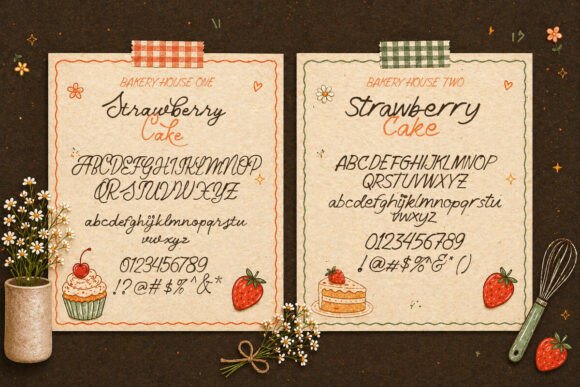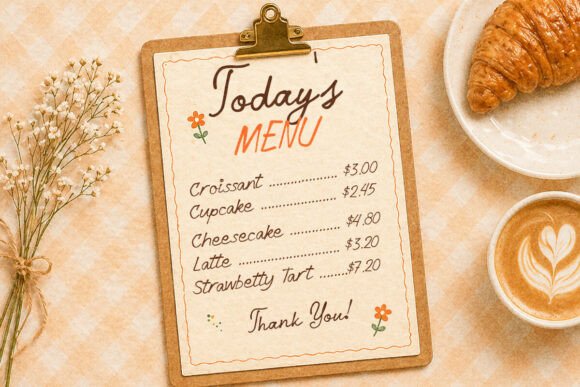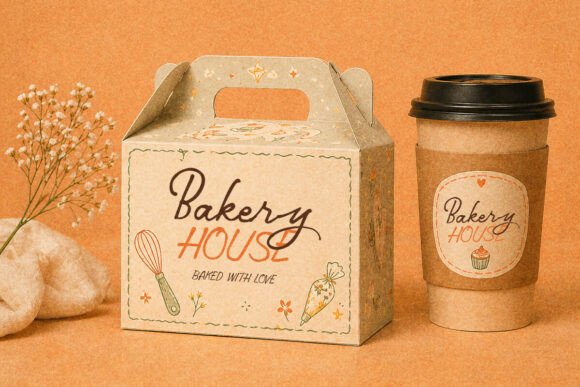
The Sweetest Font for Your Design: A Deep Dive into Golden Crumbs
Have you ever been in the middle of a design project, and suddenly, you’re stuck on finding the perfect font? I recall a recent experience where I was working on a bakery’s branding, and I just couldn’t find a font that captured the warmth and friendliness I was looking for. That’s when I stumbled upon Golden Crumbs, a delightful font that combines a soft handwritten script with a playful sans serif. In this article, we’ll explore what makes Golden Crumbs special, its features, and how to make the most of it in your designs.
A Personal Review: What I Love About Golden Crumbs
Here’s what I love about Golden Crumbs:
- ✨ Warm and delightful aesthetic: The font exudes a cozy, cute vibe with a hint of vintage charm, making it perfect for bakery logos, packaging, menus, and branding that want to feel friendly and full of joy.
- ✅ Easy to use: Golden Crumbs is a duo font that comes with a range of OpenType features, making it easy to create beautiful designs without needing to switch between multiple fonts.
- 🌈 Versatile: The font works well for both digital and print designs, and its playful sans serif companion adds a modern touch to any project.
While Golden Crumbs is an amazing font, there are a few things to keep in mind:
- ⚠️ Limited use in very formal designs: Golden Crumbs is a playful font, so it might not be the best fit for very formal or corporate designs.
- 🤔 Some characters may require manual kerning: As with any font, you might need to adjust the kerning for certain character combinations to get the perfect look.
The Backstory Behind Golden Crumbs
Golden Crumbs was designed with the intention of capturing the warmth and friendliness of freshly baked treats. The designer aimed to create a font that would feel like a warm hug, perfect for bakery logos, packaging, and branding. The result is a delightful font that’s sure to bring a smile to your customers’ faces.
- Q: What type of designs is Golden Crumbs best suited for?
- A: Golden Crumbs is perfect for bakery logos, packaging, menus, and branding that want to feel friendly, tasty, and full of joy.
- Q: Does Golden Crumbs come with OpenType features?
- A: Yes, Golden Crumbs comes with a range of OpenType features, including stylistic alternates and glyphs.